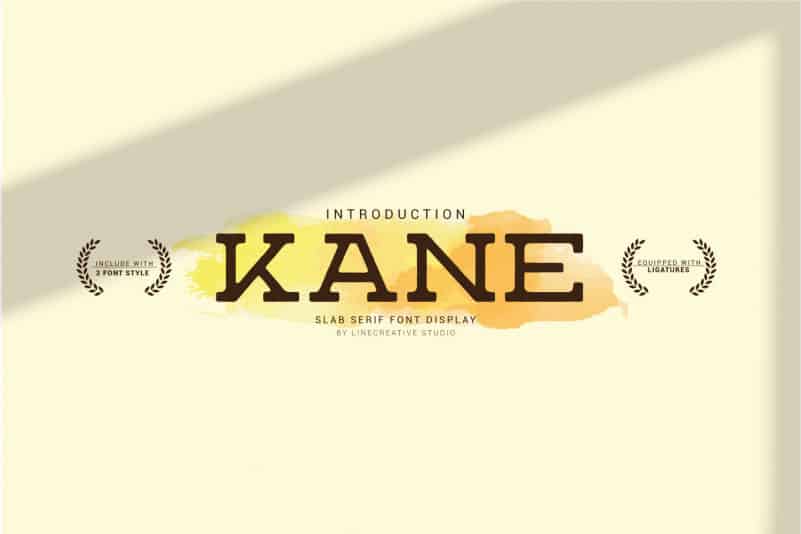
Kane Slab Serif Font
Kane Font is a geometric slab serif which made with a mono-line concept and versatile style. Inspired by old western and magazine designs. Kane has a straight and consistent line to give neat looks.
Kane is made for editorial and formal purposes. but still flexible to use it in other typographic projects.